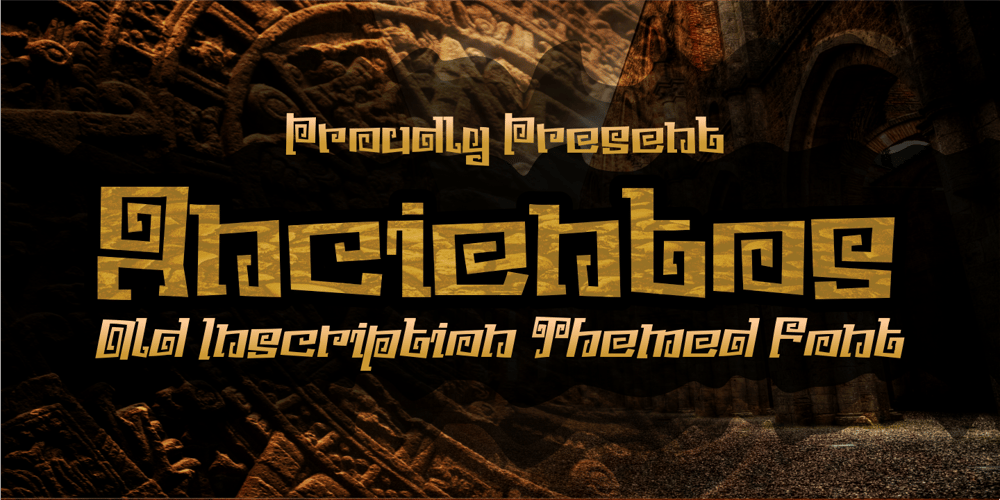
Ancientos Font Family was designed by Ahmad Zulfikar Ali and published by ZetDesign. Ancientos contains 2 styles and family package options. ancientos is a font inspired by ancient writings, transporting you to the past that is amazing and full of beauty and strong character. This font is perfect for use on all historical-themed projects and comes with italic style and opentype features that help designers produce stunning work.